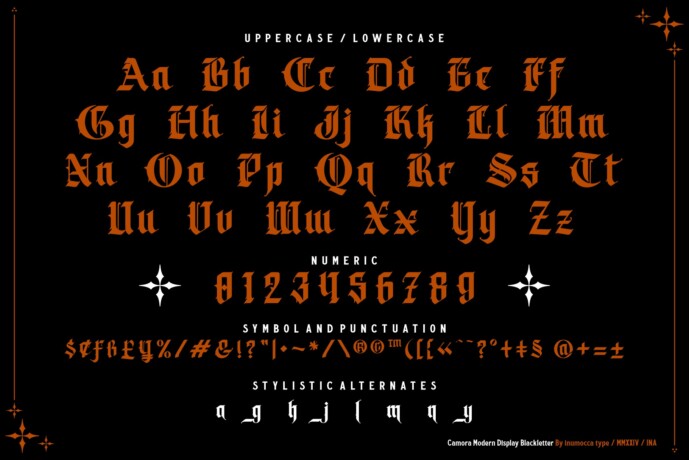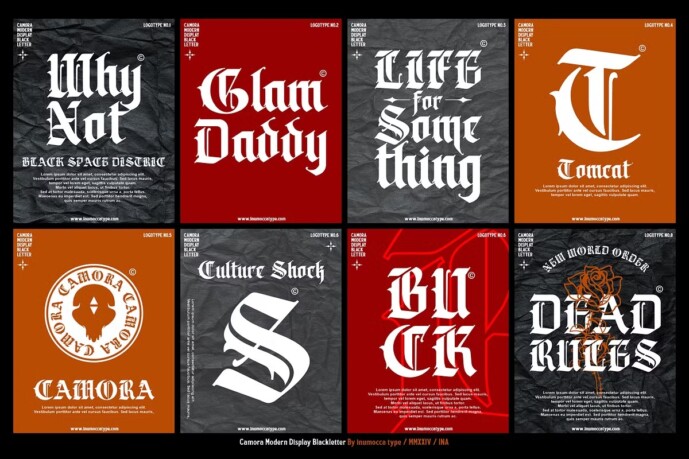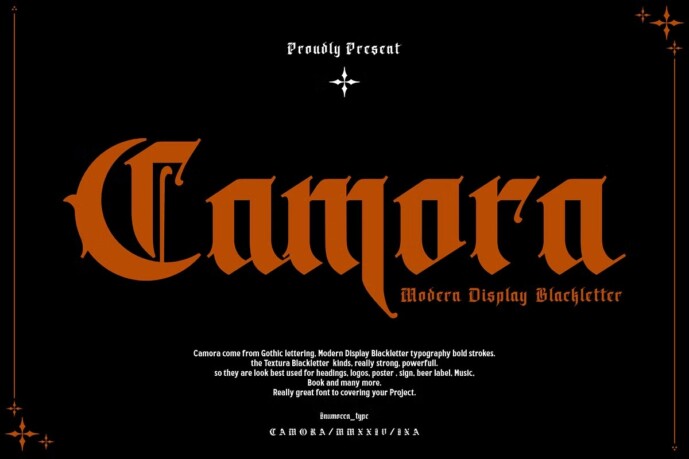
Camora Font
Designer: inumocca_type
Camora Font, come from Gothic lettering, Modern Display Blackletter typography bold strokes. the Textura Blackletter kinds, really strong, powerfull. so they are look best used for headings, logos, poster , sign, beer label, Music, Book and many more. Really great font to covering your Project